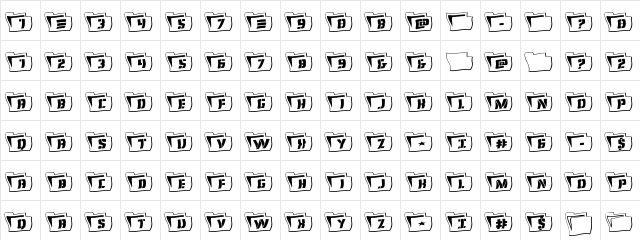
Eyes Only Outline Wavy 2 Outline
Design Context for Eyes Only Outline Wavy 2 Typeface
Eyes Only Outline Wavy 2 is built around its visual character rather than neutral utility — its distinctive forms are designed to make an impression at display sizes.
Font Pairing: Pair with a clean neutral sans-serif for body copy to let Eyes Only Outline Wavy 2's character lead without overwhelming the composition.
Pro Tip: Treat Eyes Only Outline Wavy 2 as the centrepiece of your typographic hierarchy. One strong heading set in a decorative face can carry an entire layout.